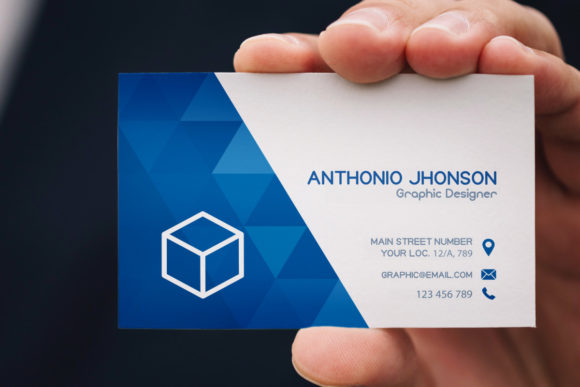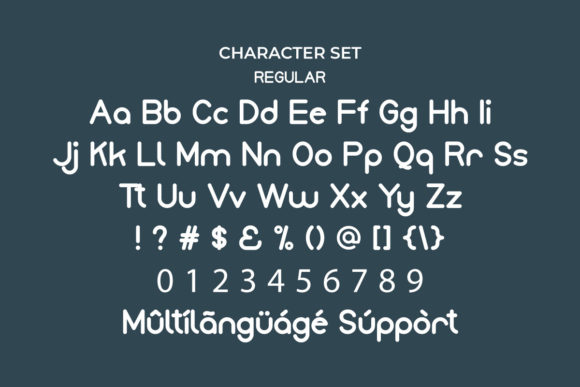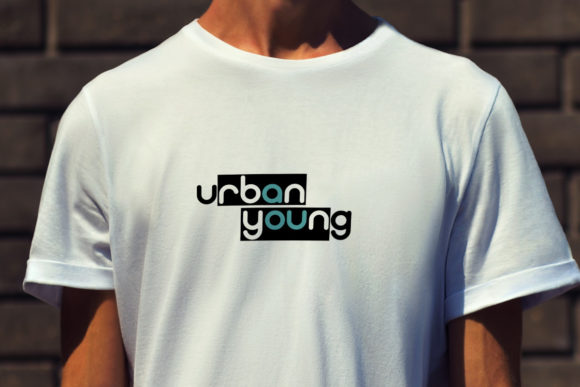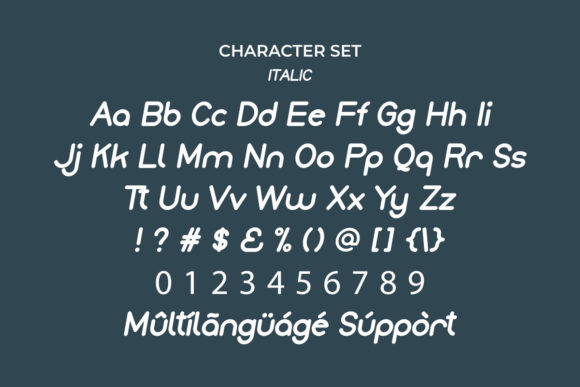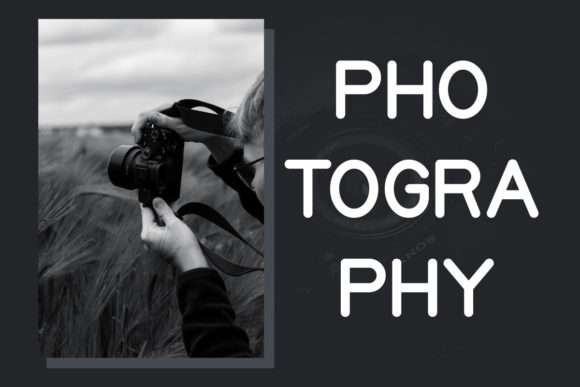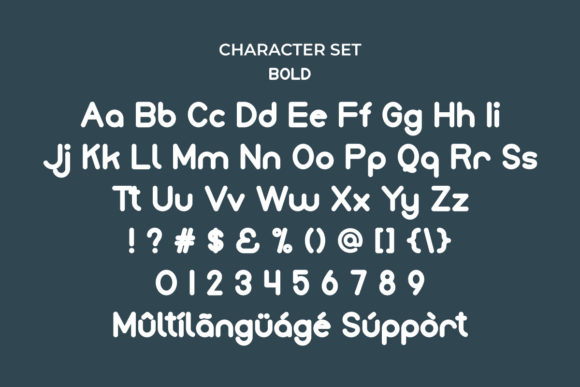
Introduction to Monice Font
Monice is a modern sans serif typeface with a casual style.
The styles of this font are elegant, modern, stylish, and minimal Monice Font will be great for any projects, including branding, logo, stationery, business card, signage, flyer, and brochure.